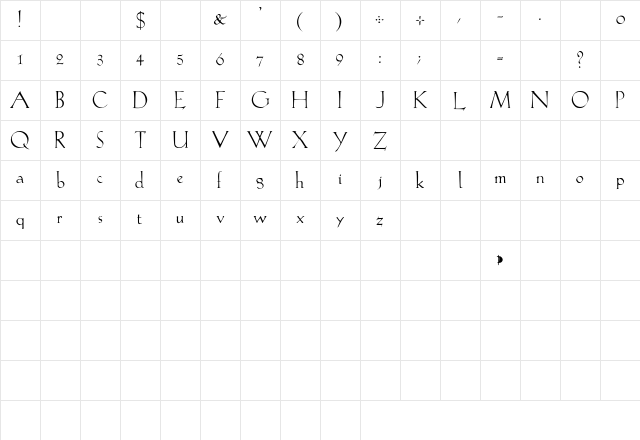
Gabel-Light Regular Free Font
Gabel-Light Regular
Design Context for Gabel-Light
Gabel-Light is a composed and adaptable typeface that performs quietly and consistently across a wide range of design contexts. Its slender proportions lend an understated elegance to any composition.